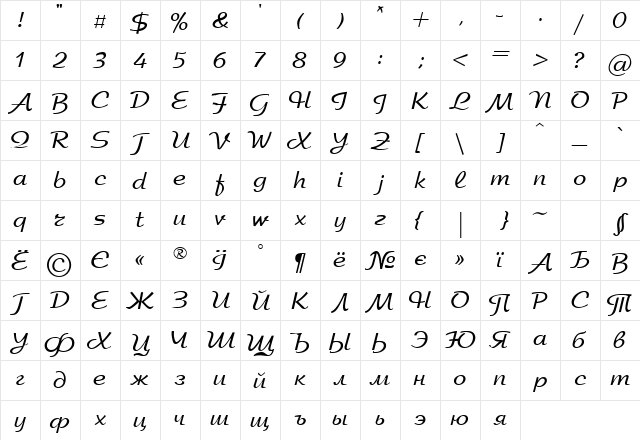
ArbatC Normal
Design Context for ArbatC Typeface
ArbatC takes a measured approach to typography — its balanced proportions and neutral character make it a reliable workhorse for both digital and print work.